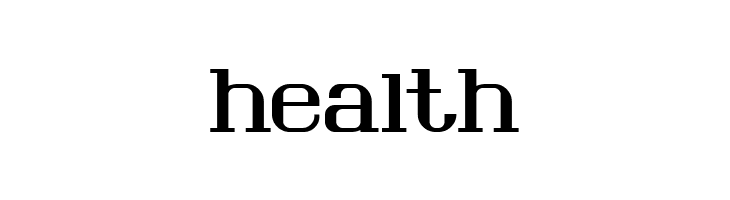
Plateia Bold Font
A bold, modern font with geometric structure and strong visual impact.
BebasNeueBook Font
A modern, tall, and narrow sans-serif font with a clean and professional look.
Minecraft Evenings Font
A bold, pixelated font with a rugged, digital aesthetic.
Blood Crow Condensed Font
A bold, distressed, and condensed font with a grungy aesthetic.
Dynasty Font
A bold, hand-drawn font with a playful and textured outline.
Christmas Card II Font
An ornate, decorative font with a festive, gothic style.
Noto Serif Display Black Font
A bold, high-contrast serif font with a modern yet classic style.
ColunaRounded-CondensedBold Font
A bold, condensed font with rounded edges and tight spacing.
CaslonGraphique-Opti Font
A bold, high-contrast serif font with dramatic strokes and sharp serifs.
Hello Kitty Font
Cartoon-themed decorative font with playful outlined character illustrations.
Inter Italic Font
A modern, italicized font with clean lines and excellent legibility.
HighVoltage Rough Font
A bold, distressed font with a rough, vintage texture.
Chelsea Font
A modern, geometric font with art deco influences and thin, elegant lines.
Aero Font
COCOGOOSE Font
A bold, modern sans-serif font with geometric shapes and consistent stroke width.
#44 Font Shadow Font
A bold, playful font with a shadow effect for a 3D look.
Janda Manatee Bubble Font
A playful, bubble-outlined font with bold, rounded characters.
OPTITriplettBoldAgency Font
A bold serif typeface with strong, thick strokes and slightly condensed letterforms.
Telegraph Font
A bold, high-contrast serif font with a vintage yet modern appeal.
XXII STRAIGHT-ARMY Font